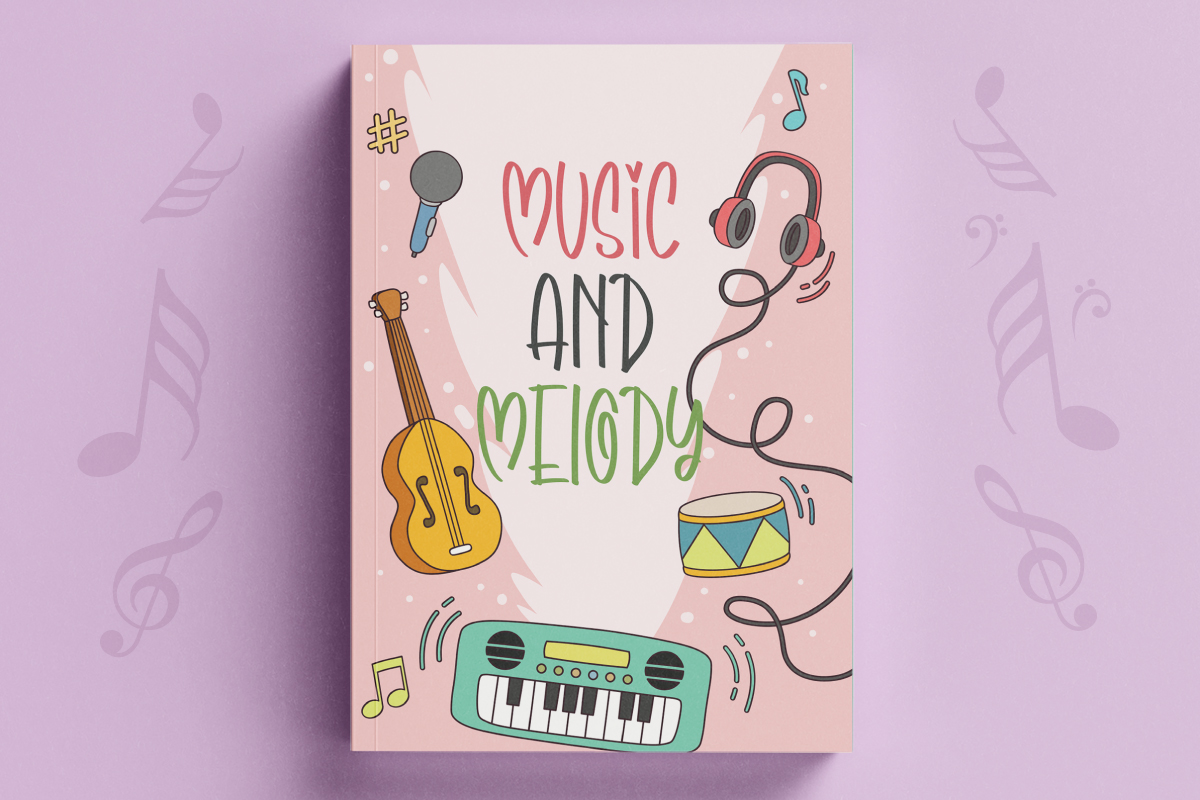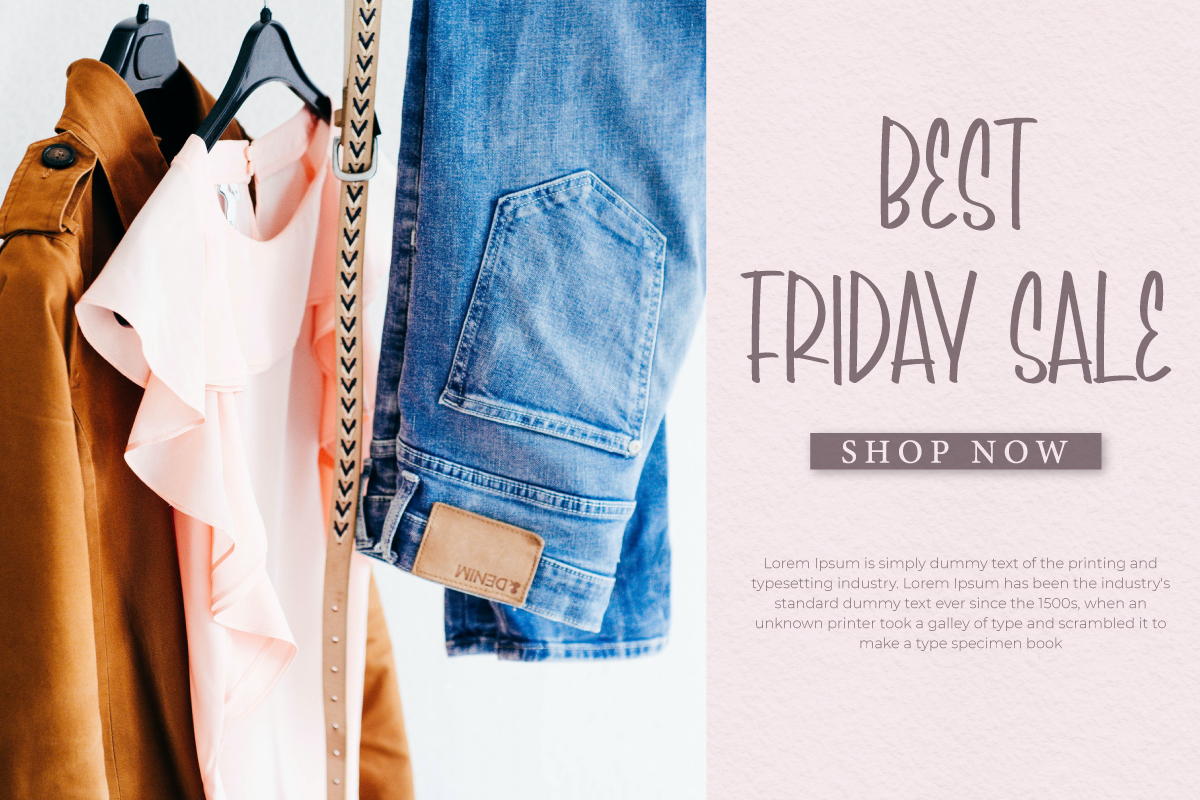
Cute Symphony Font
Cute Symphony Display Font
It’s a fun and simple display handwriting font. The font has unique and stylish shape with a simple styles . Cute Symphony Font includes of uppercase and lowercase letters, numerals, punctuation. It gives a complete authentic feel to your text. Lightness inspired by the beautiful symphony that are not hard to hear brings this font connected